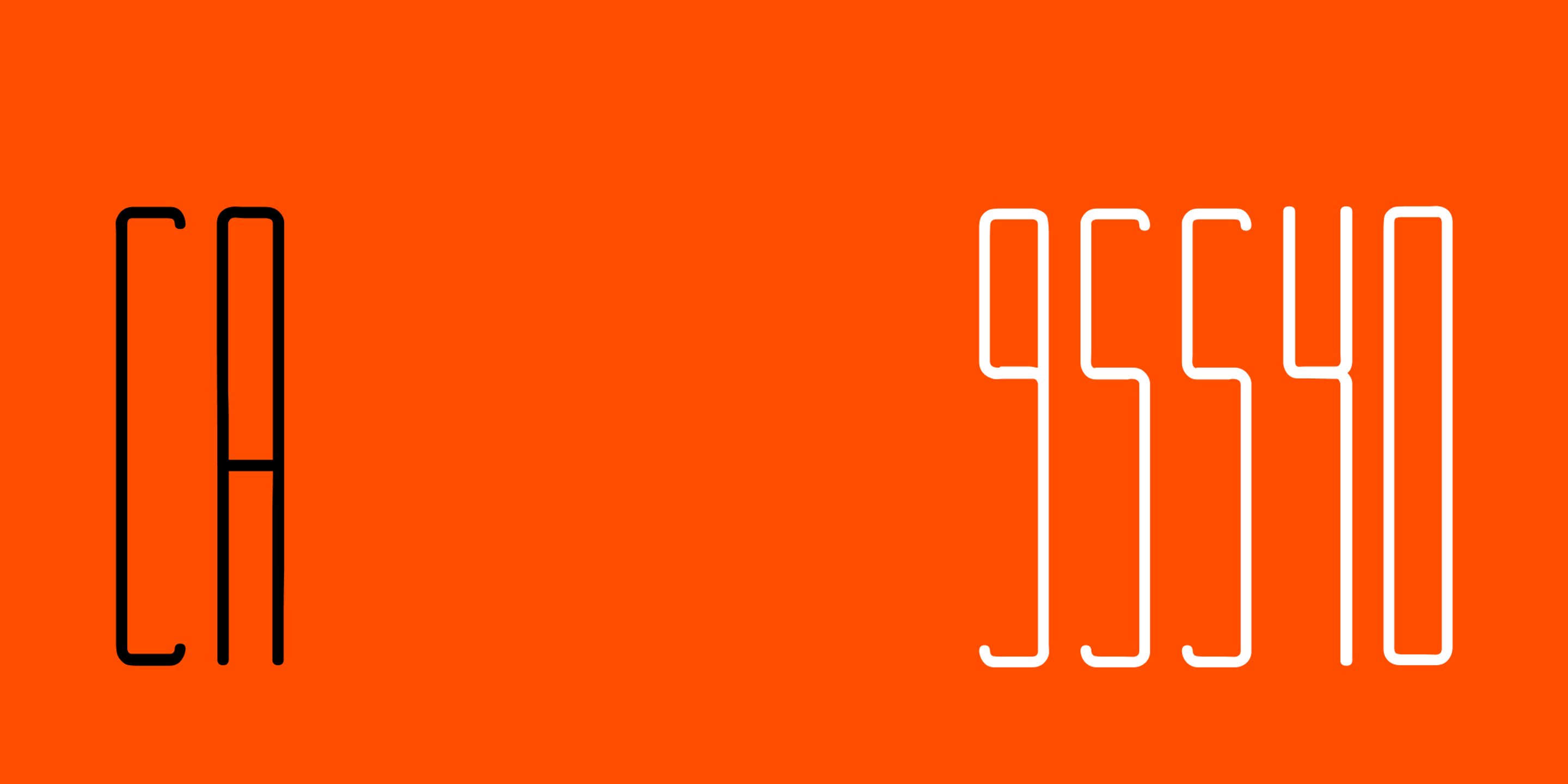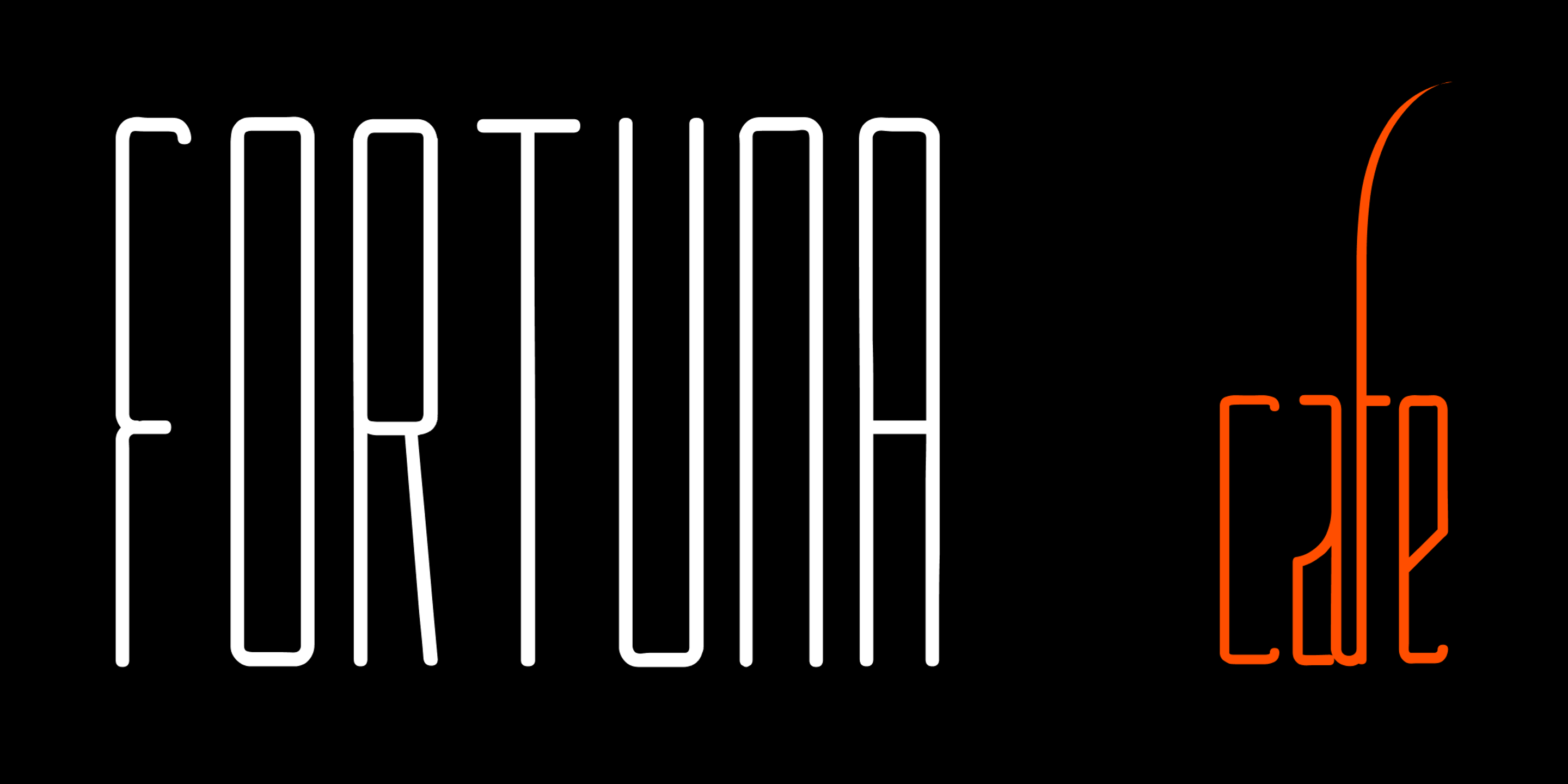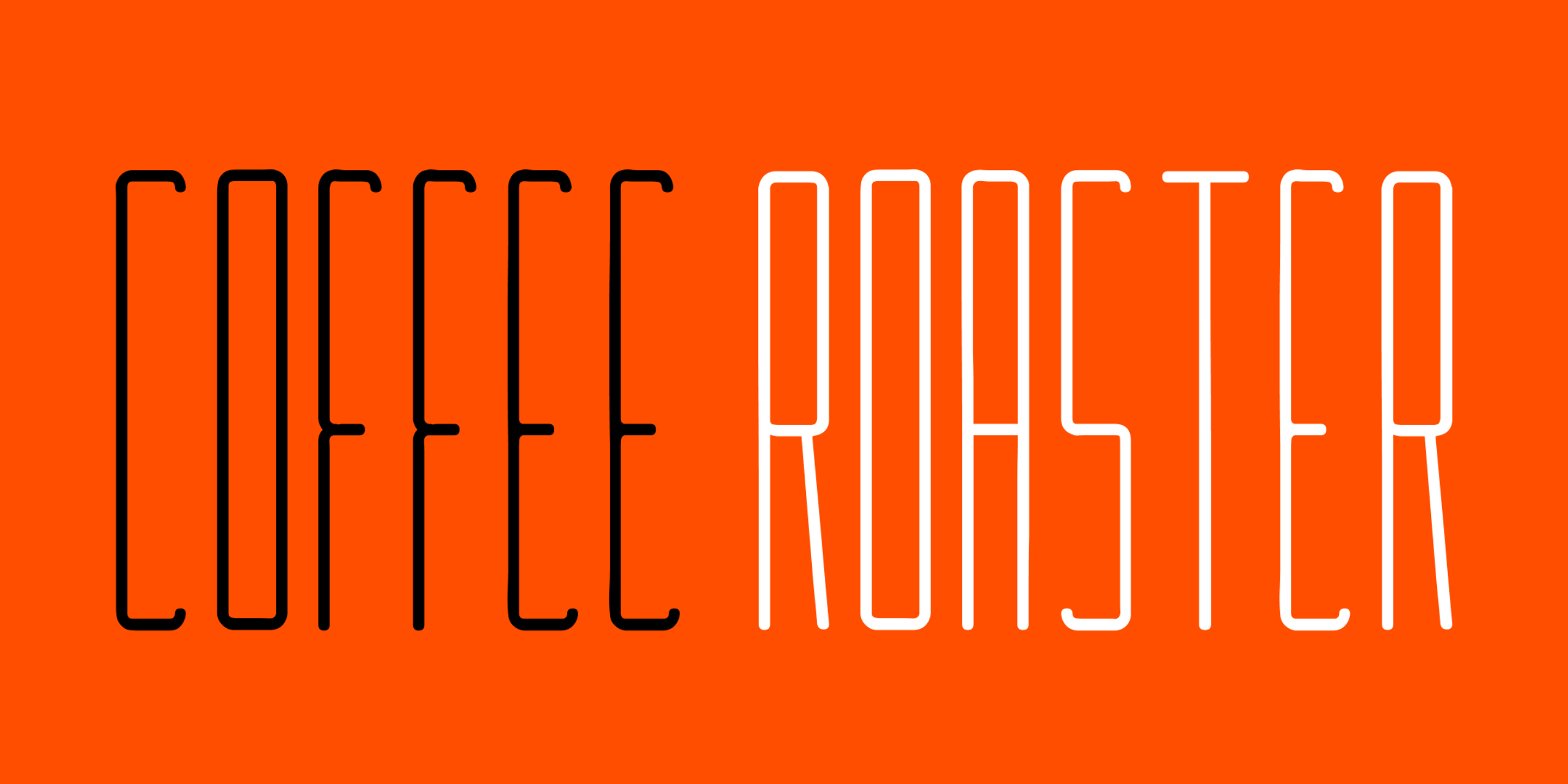
Lunga font by Sproviero Type — the black letters C and A, and the white numbers 9, 5, 5, and 4, all in a tall, narrow, rounded sans-serif outline style
Lunga font by Sproviero Type — the word “FORTUNA” in white, upright, condensed sans-serif outline letters, and the word “cafe” in orange, condensed sans-serif outline letters with an elongated ascender on the ‘f’ extending upwards and curving to the right
Lunga font by Sproviero Type — the words “COFFEE ROASTER” in tall, narrow, outline sans-serif letters, with “COFFEE” in black and “ROASTER” in white
Lunga Exacta
Lunga Extras
Lunga Real Ligada
Lunga Versalita
Lunga is a strikingly narrow display font family with a refined, ornamental edge. Its dramatic vertical rhythm, elongated forms, and sweeping ligatures give it a sense of elegance and restraint — while its flourished alternates add an experimental flair when desired. Whether kept minimal or dialed up with decorative alternates and swashes, Lunga makes a strong statement for fashion brands, luxury packaging, or editorial layouts calling for distinction and drama.